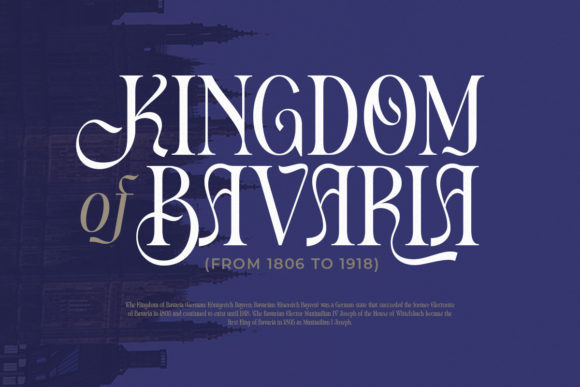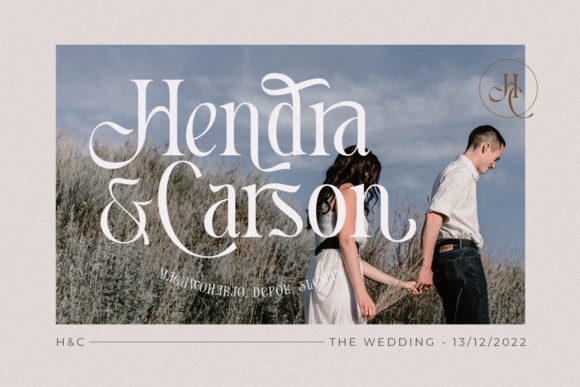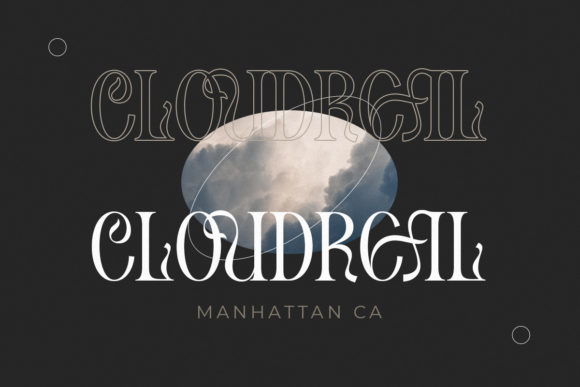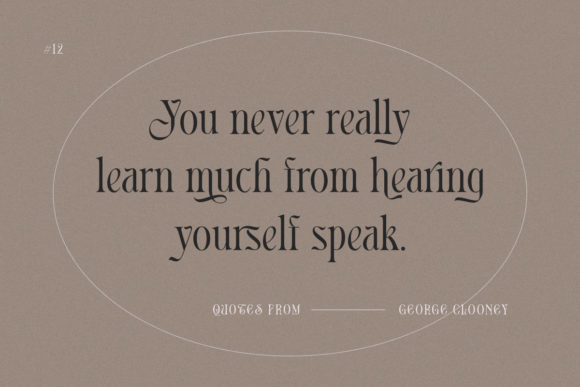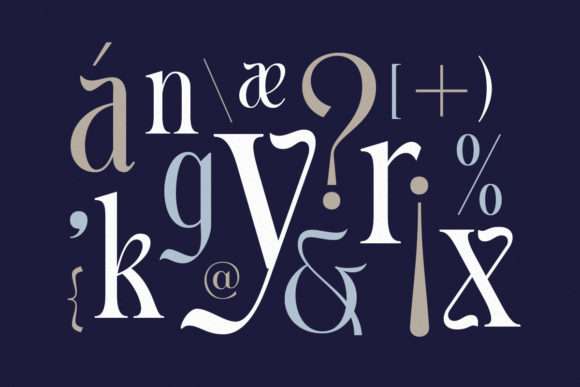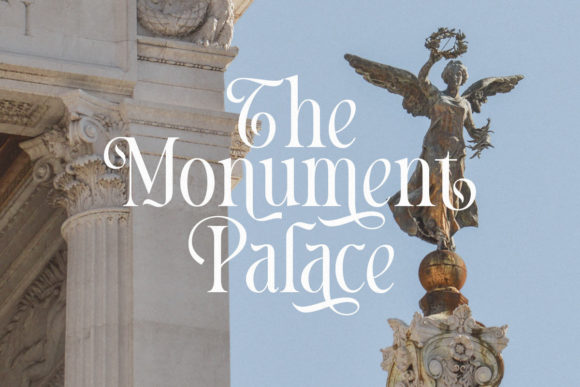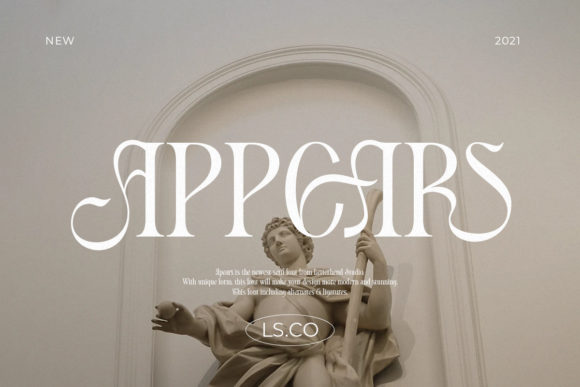
The Elegance of Appears Font: A Designer’s New Best Friend
I still remember the last time I was working on a wedding invitation project, and my client asked for a font that exuded elegance and sophistication. I scoured through my font library, but nothing seemed quite right. That’s when I stumbled upon Appears Font, and it instantly became my go-to choice. In this article, I’ll share my experience with Appears Font, its features, and how to make the most of it in your designs.
An Honest Review of Appears Font
What I Love About Appears Font
- ✨ Elegant Serif Design: Appears Font boasts a stylish and incredibly elegant serif design that instantly elevates any project.
- ✅ Versatility: This font is perfect for a wide range of design projects, including invitations, thank you cards, quotes, greeting cards, logos, business cards, and more.
- 💫 Readability: The font is highly readable, even at smaller sizes, making it perfect for body text or captions.
While Appears Font is an excellent choice, there are a few things to keep in mind:
- ⚠️ Limited Use of All-Caps: While the font looks stunning in title case or mixed case, it may not be the best choice for all-caps headings or titles.
- 🤔 Glyph Limitations: As with any font, there may be limitations to the number of glyphs or special characters available. However, Appears Font does offer a range of OpenType features that can enhance your designs.
The Backstory of Appears Font
While I couldn’t find any information on the exact design process behind Appears Font, I imagine it was created with the intention of providing a beautiful, elegant font for designers and crafters. Perhaps the designer was inspired by classic serif fonts and wanted to create something modern and fresh. Whatever the inspiration, Appears Font is undoubtedly a stunning addition to any design project.
| Font Name | Appears Font |
| Author | letterhend |
| What type of projects is Appears Font best suited for? | Appears Font is perfect for invitations, thank you cards, quotes, greeting cards, logos, business cards, and other designs that require an elegant touch. |
| Does Appears Font support OpenType features? | Yes, Appears Font offers a range of OpenType features, including stylistic alternates, glyphs, and swashes. |